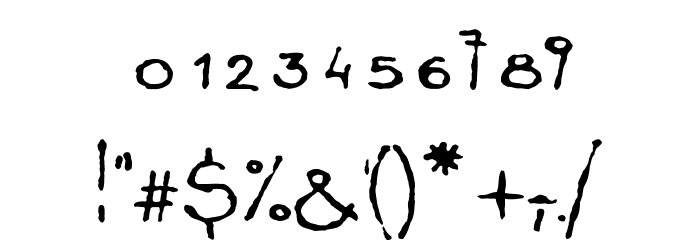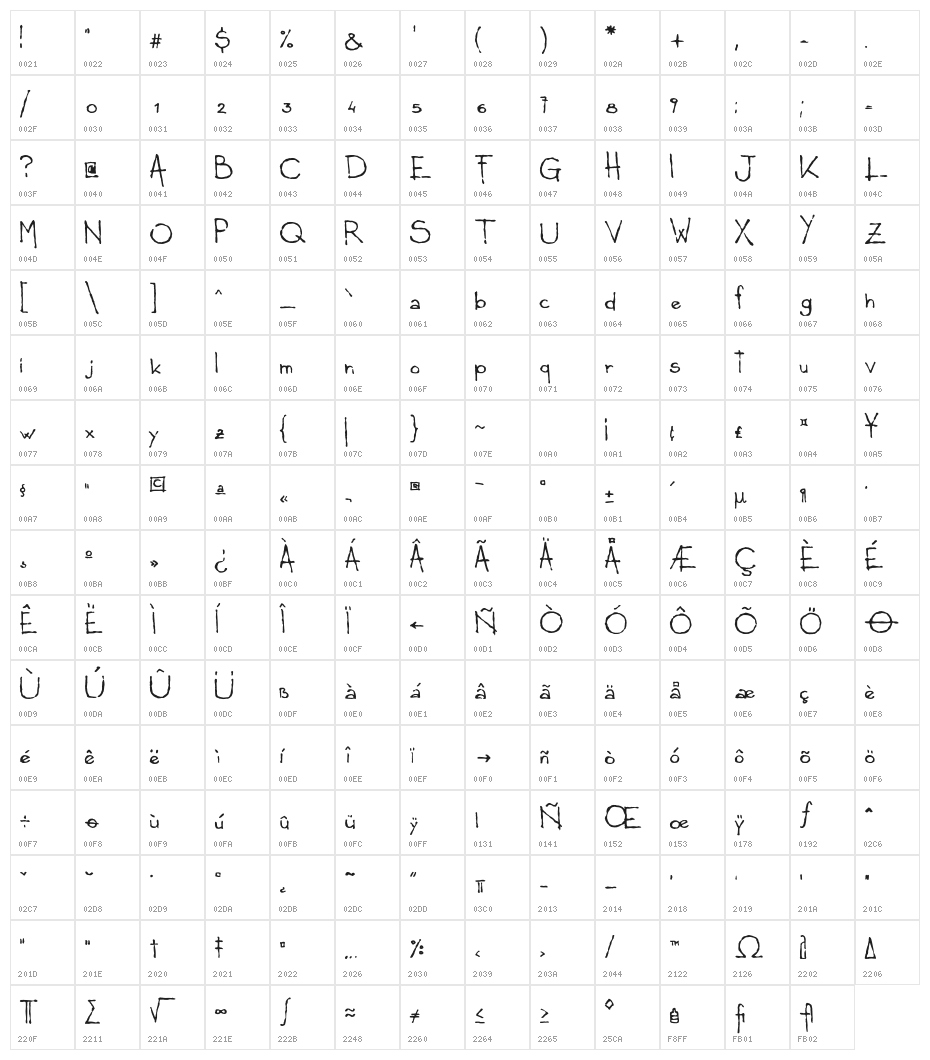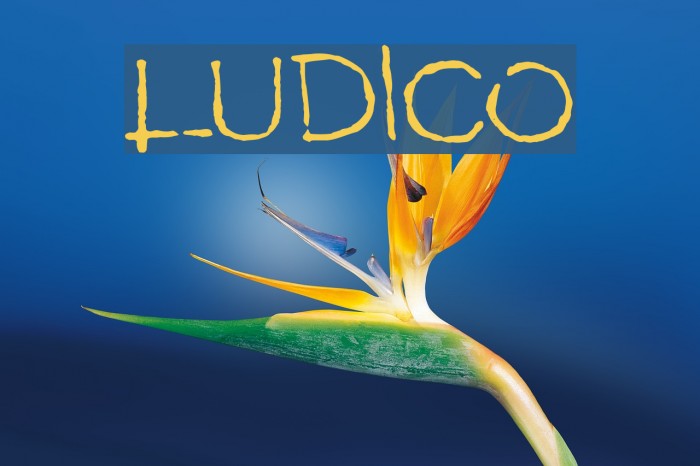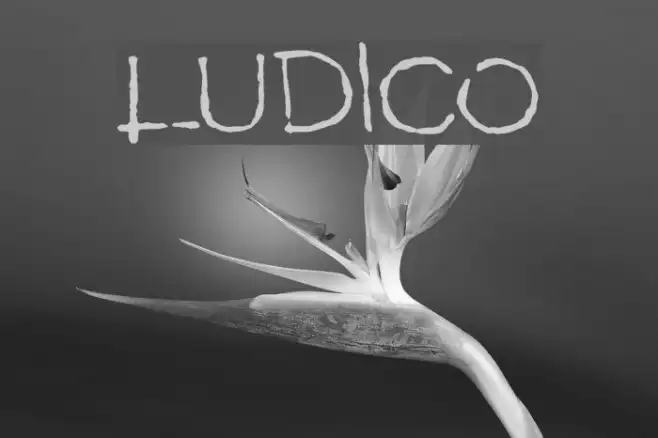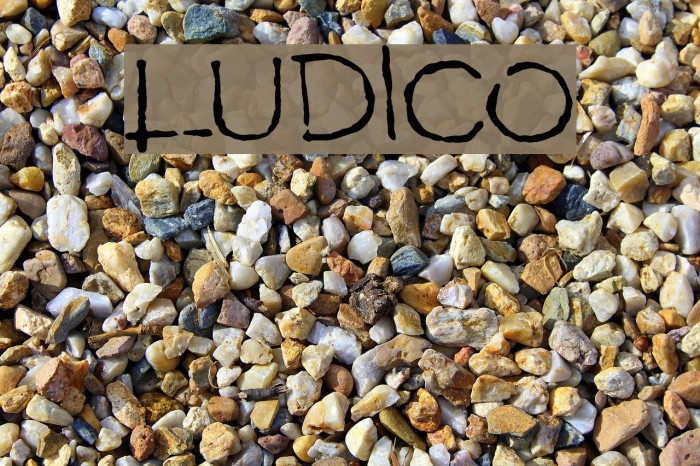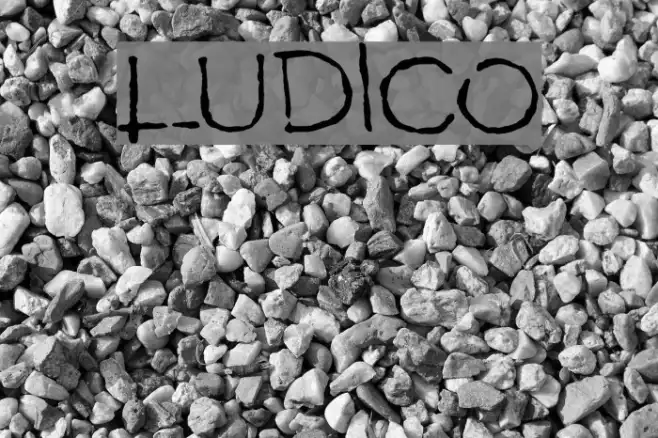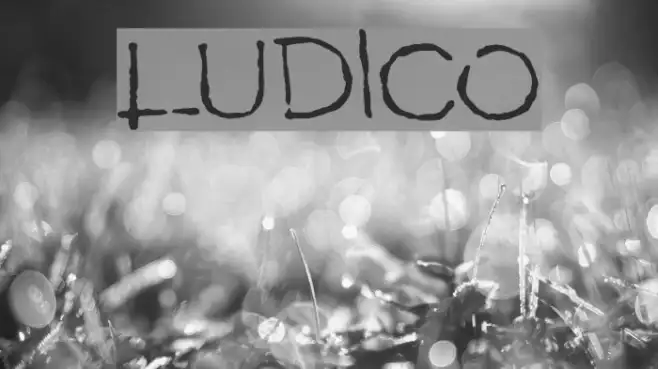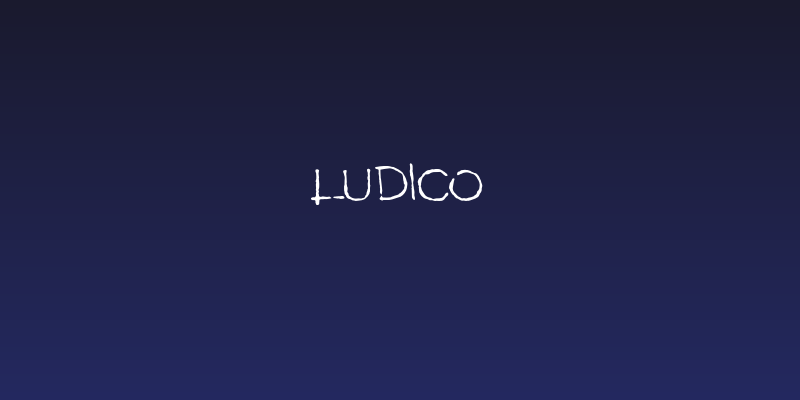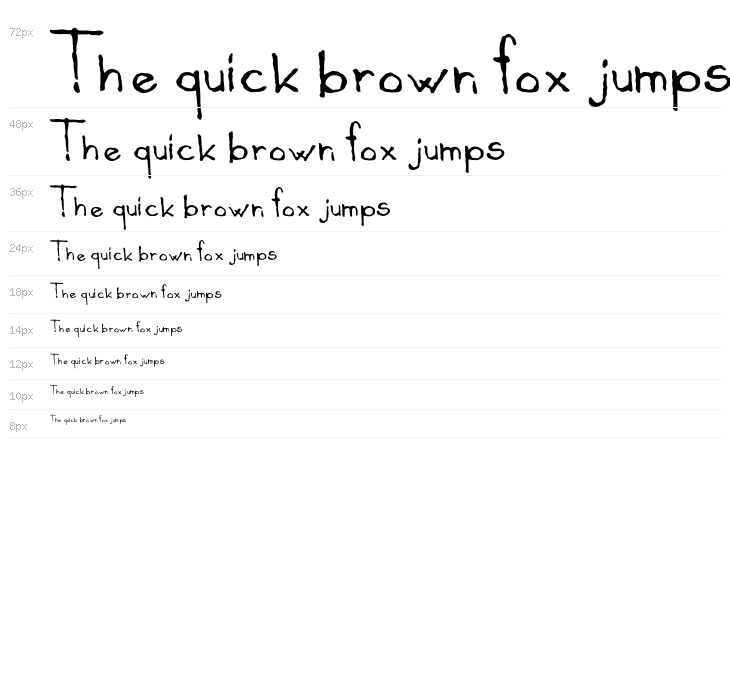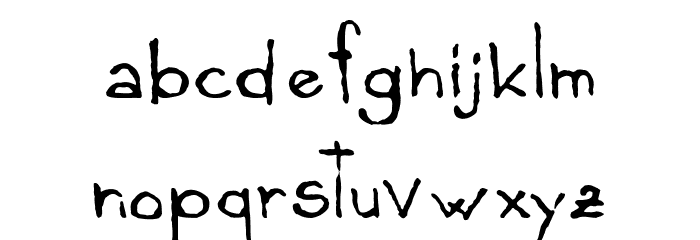
LUDICO Font
LUDICO Description
This font features a playful and whimsical design, characterized by its irregular and hand-drawn appearance. The letters have a casual, almost childlike quality, with uneven strokes and varying heights that give it a unique personality. The uppercase and lowercase letters maintain a consistent style, with a slightly rough texture that adds to its charm. The numerals and special characters follow the same playful theme, making it suitable for creative and informal projects. Its distinctive style makes it stand out, while still being legible and versatile.